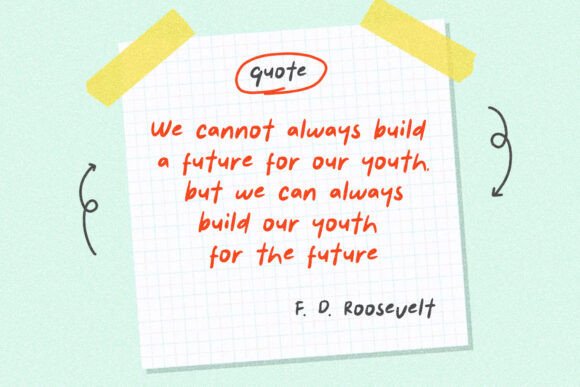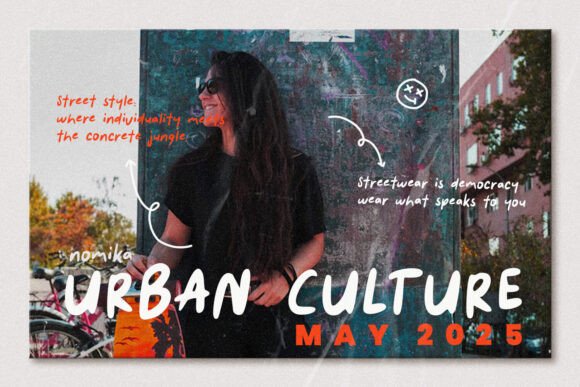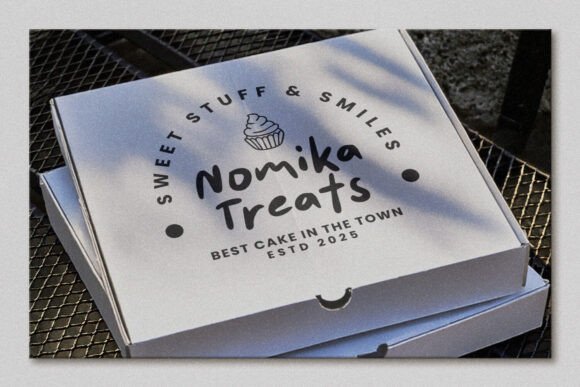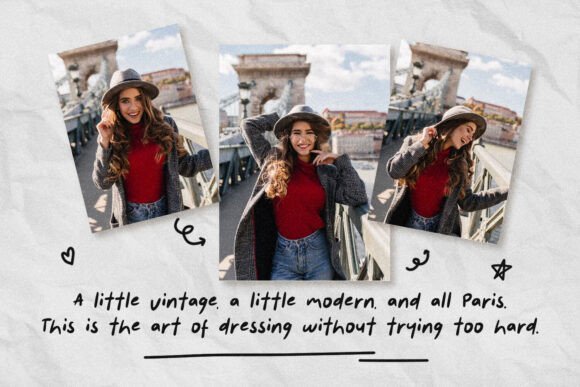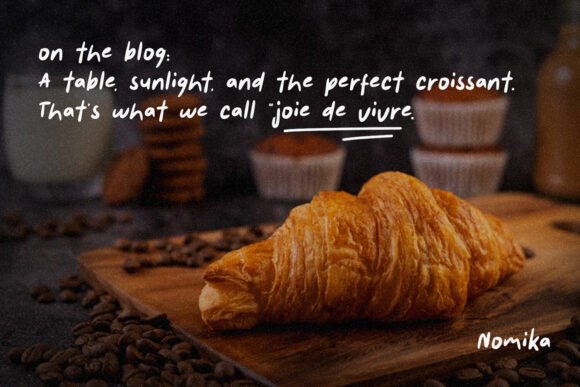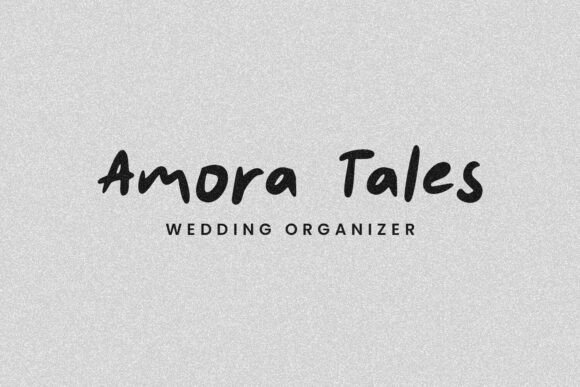
Introduction to Nomika Font
Have you ever stumbled upon a font that captures the essence of your creative project and brings it to life? For me, that moment was when I first laid eyes on the Nomika Font. Its playful, handwritten style instantly made me think of a bright marker scribbling away on a transparent background. It’s as if the font is saying, “Hey, let’s add some charm and personality to this design!”
As a designer, finding the right font can make all the difference between a good design and a great one. Nomika Font is a high-quality addition to any creative project, offering a free download that’s perfect for quotes, social posts, journals, and more. Its organic stroke rhythm gives it a unique, handcrafted feel that’s both fun and professional – a perfect balance for designers looking to add a touch of whimsy without sacrificing clarity.
Whether you’re working on a branding project for a youth or lifestyle product, or simply looking to add some personality to your social media posts, Nomika Font is a valuable design resource that’s sure to bring a smile to your face.
Key Features of Nomika Font
- High-quality, unique design ideal for creative projects and design resources.
- Transparent background for seamless integration into various design elements.
- Designed with a modern aesthetic, suitable for a wide range of creative projects, from digital art to print materials.
Honest Review: Nomika Font
I recently came across the Nomika Font, and I must say it’s a great addition to any designer’s toolkit. This free download offers a high-quality font that can be used for various creative projects.
One of the things that stands out about the Nomika Font is its transparent background, making it perfect for projects that require a clean and minimalistic design.
- Transparent background for a clean and minimalistic design
- Wide range of font styles and weights
- May not be suitable for projects that require a bold or dramatic font
- Some users may find the font styles a bit too minimalist
- Not as extensive a font family as some other popular fonts
Overall, I’m impressed with the Nomika Font and think it’s a great design resource for any creative project. While it may have some limitations, it’s a high-quality font that’s perfect for designers looking for a clean and minimalistic design.
Nomika Font
The Nomika Font is a high-quality, free download that can be used in a variety of creative projects. With its transparent background, this font is perfect for designers looking to add a touch of elegance to their designs.
Tips for Getting the Most Out of Nomika Font
To get the most out of the Nomika Font, use it in conjunction with other design elements, such as images and graphics. You can also experiment with different font sizes, colors, and styles to create a unique look.
Common Use Cases for Nomika Font
The Nomika Font is commonly used in creative projects, such as graphic design, digital art, and typography. It is also used in marketing materials, such as brochures, flyers, and business cards.